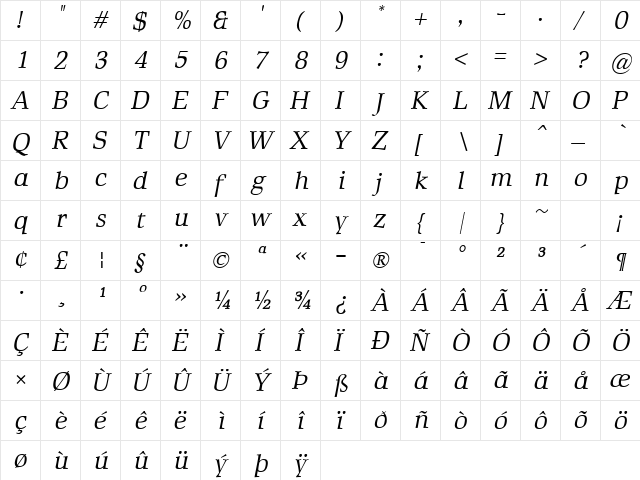
Rustika Italic
Design Context for Rustika Typeface
Rustika is a composed and adaptable typeface that performs quietly and consistently across a wide range of design contexts. The dynamic lean of this cut emphasises speed and emphasis in any layout.
Pro Tip: Use Rustika for emphasis, pull quotes, and subheadings where its slanted energy can add rhythm to the layout.